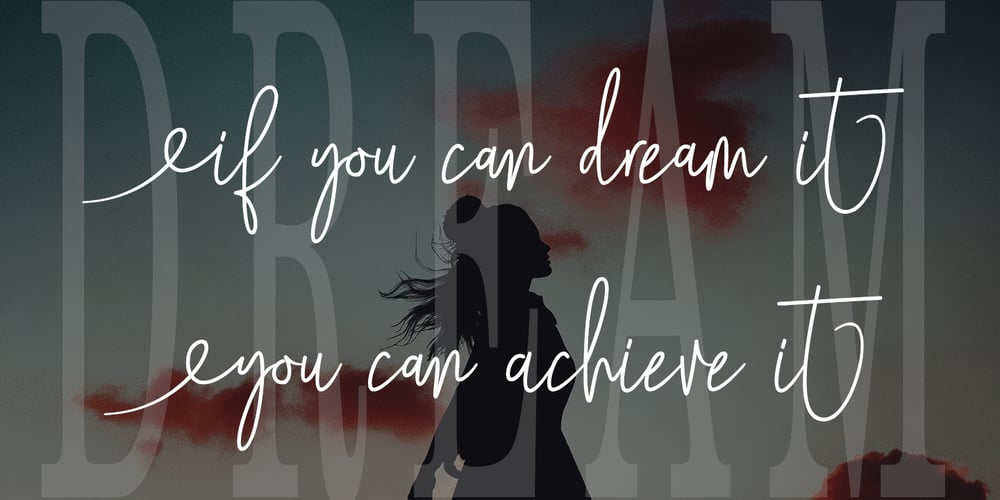
Mollaroid Signature
Mollaroid Signature font
Mollaroid Signature Font Family was designed by Alde Saputro and published by Aldedesign. Mollaroid Signature contains 1 styles and family package options. Mollaroid – Signature Font – A stylish and quirky new signature font script. Mollaroid font was created to look as close to a natural handwritten script as possible by including over a lot ligatures, titling, and swash. This font is for those who want to show something smooth and modern. You may use this font if you want to attract modern buyers. The font design seems to show that you have a passion in the business and give your love to the products and services you are offered to customers. Because it is an eye-catching signature font, you can use it for a variety of purposes including design, branding, signature, logo, poster, and many more. Even, you can just print it in a t-shirt and the font makes the t-shirt looks interesting to see.